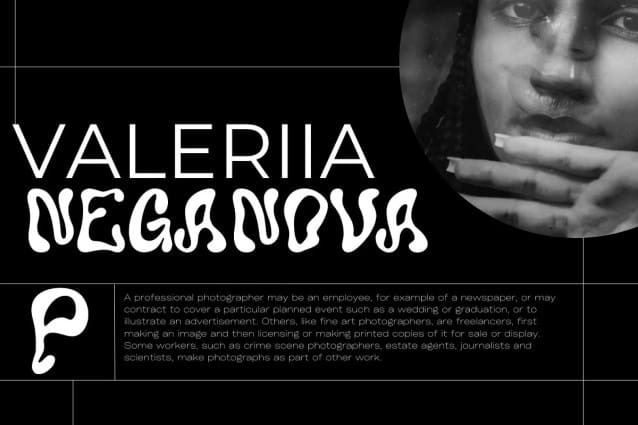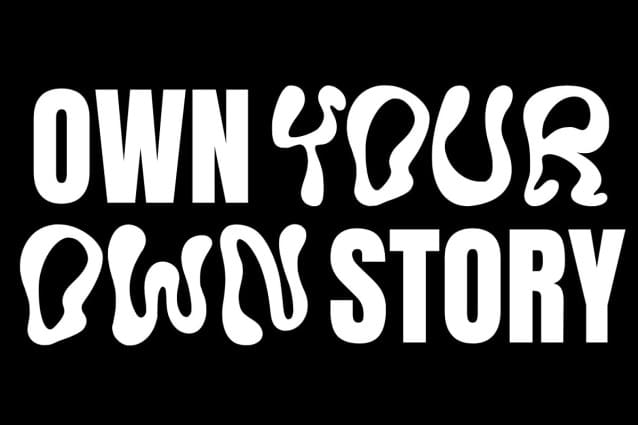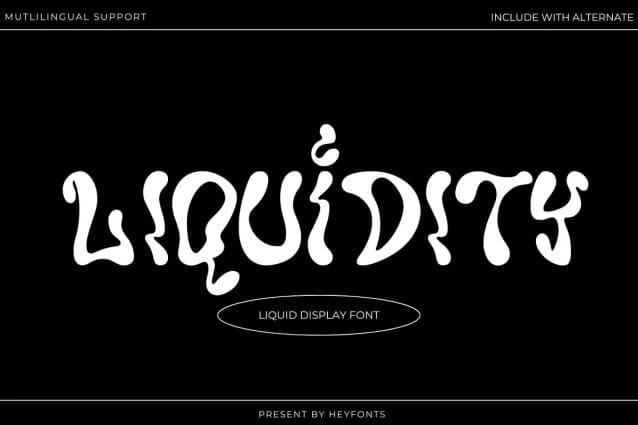
Liquidity Display Font
Liquidity Display Font is a unique and visually captivating font that mimics the appearance of liquid droplets. The letters are beautifully distorted and irregular, as if they were formed by dripping water or molten metal. This font is perfect for designs that require a touch of surrealism or a futuristic look.
The characters in Liquidity Display are sleek and fluid, with smooth curves and organic shapes. The droplets that make up each letter vary in size and are strategically placed to create a cohesive and harmonious composition. The font appears as if it is constantly in motion, with the droplets merging and separating to form each letter.
The color palette of Liquidity Display ranges from metallic silver to vibrant hues of blue and green, adding to the liquid-like quality of the font. The varying shades and gradients give the impression that each letter is made up of different layers of liquid, creating a sense of depth and dimension.
Despite its distorted and unconventional appearance, Liquidity Display remains highly legible and readable. Each letter is carefully crafted to maintain its clarity and distinction, ensuring that the font can be easily understood in both small and large sizes.
Liquidity Display is a versatile font that can be used in a wide variety of design projects. It is especially well-suited for creative and artistic applications, such as logos, album covers, posters, and websites. Its unique aesthetic is sure to grab attention and make a bold statement.
Overall, Liquidity Display is a visually stunning font that combines fluidity and elegance in a truly original way. Its distorted and irregular nature sets it apart from traditional fonts, making it a great choice for designers looking to add a touch of uniqueness and creativity to their projects.